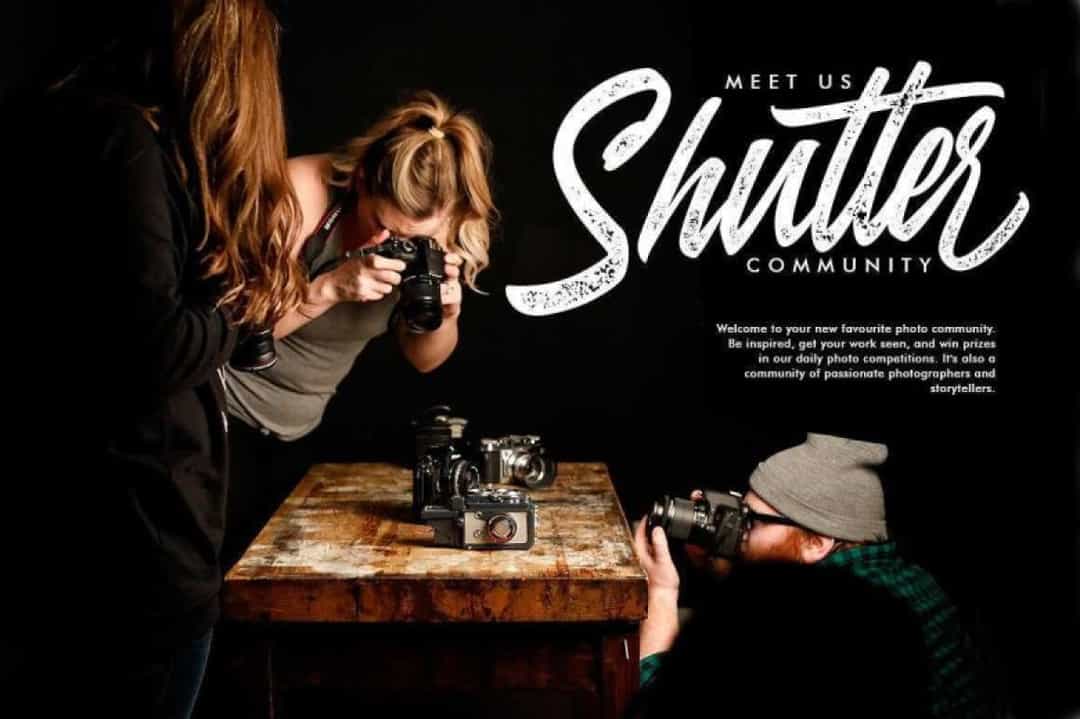
Discover Entreaty Script Font, part of the Brush Calligraphy collection—a versatile and unique font perfect for adding a personal touch to your projects. Download it for free and enjoy crafting designs with style, from invitations to social media posts. This font is available exclusively for personal use, giving you the freedom to create without limits. Unlock your creativity with Entreaty Script Font today!
Creatype Studio Co, an Indonesian professional designer from Depok, owns this product still today and we carry many of his designs including Entreaty: an exotic script for handwritten fonts which is unique and has highly sensitive and dramatic motions to it making the users enable them to get attractive handwritten font designs within the shortest timeMarshal — an elegant modern handwriting style characterized by elaborate strokes as well as specific actions that make it very possible for the users get unique designs of handwritten fonts within a very short time.